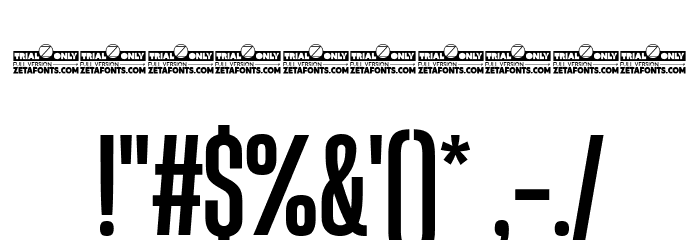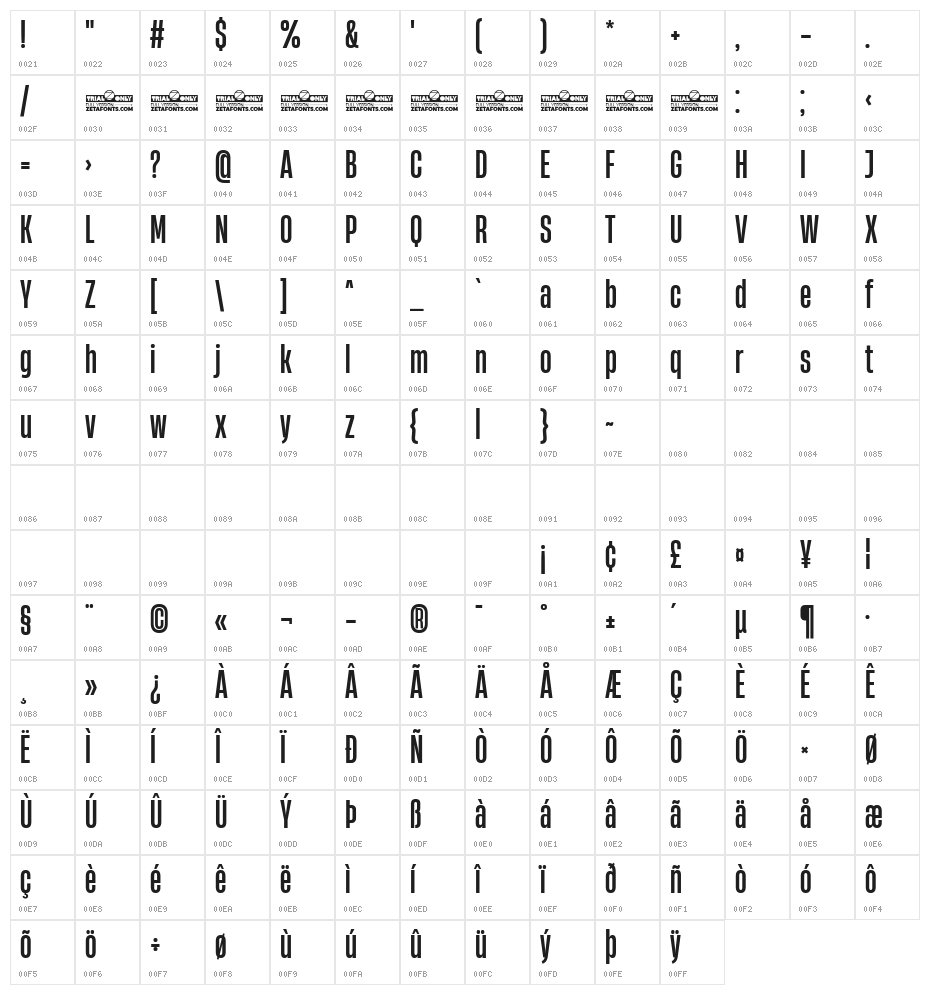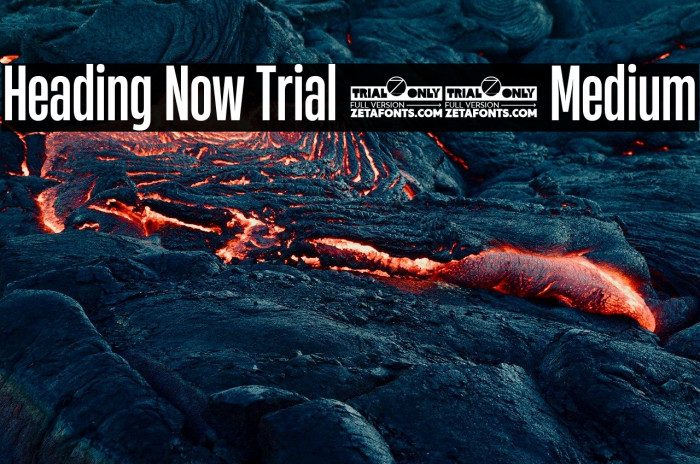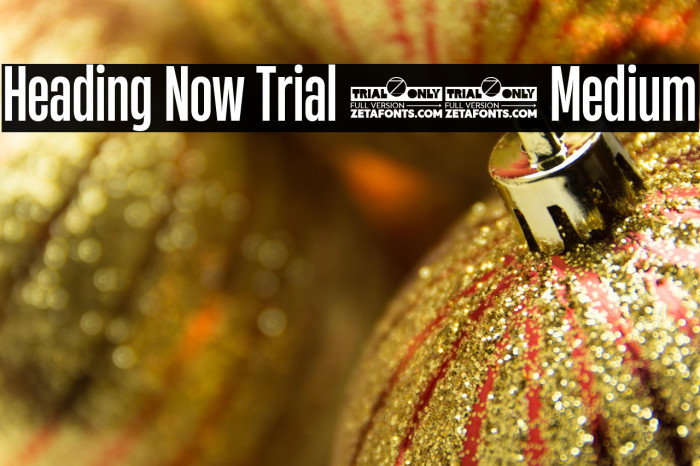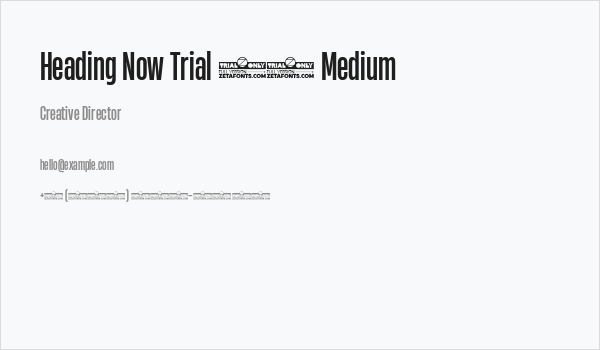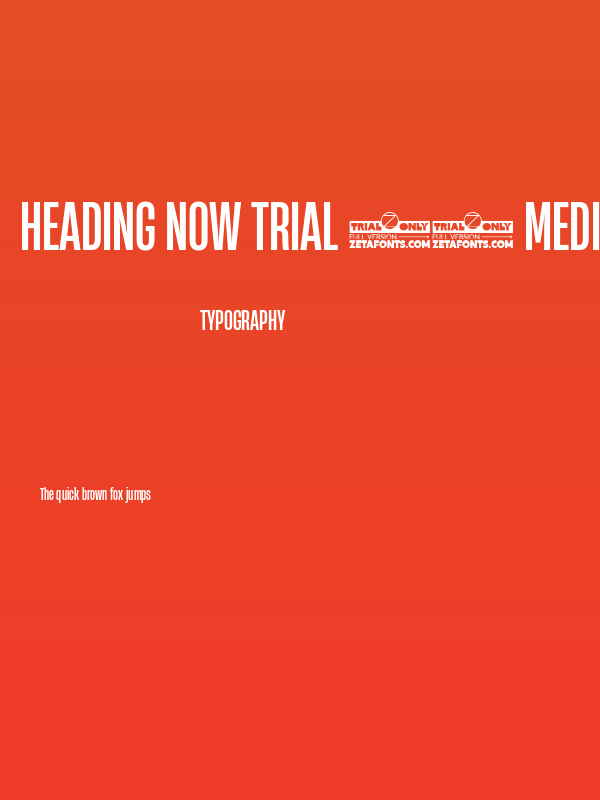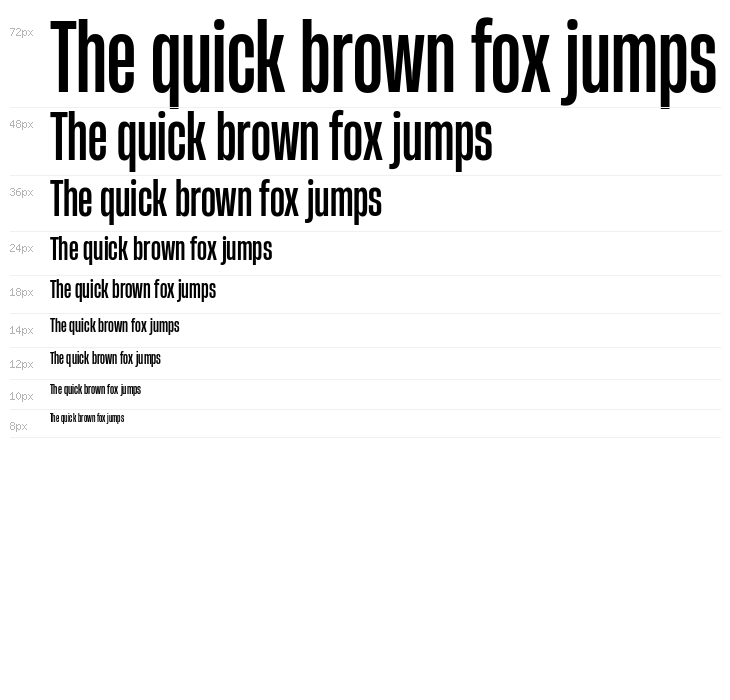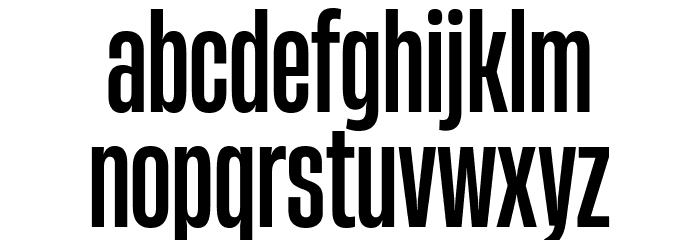
Heading Now Trial 35 Medium Font
Heading Now Trial 35 Medium Description
This font features a bold and modern sans-serif style with clean, straight lines and a uniform stroke width. The uppercase and lowercase letters are well-proportioned, providing a strong visual impact. The characters are slightly condensed, which enhances readability and allows for efficient use of space. The font includes a full set of uppercase and lowercase letters, numerals, and a variety of special characters, making it versatile for various design needs. Its contemporary aesthetic makes it suitable for both digital and print media.
| Proposed Projects | Ideal for headlines, branding, advertising, and editorial design projects. |